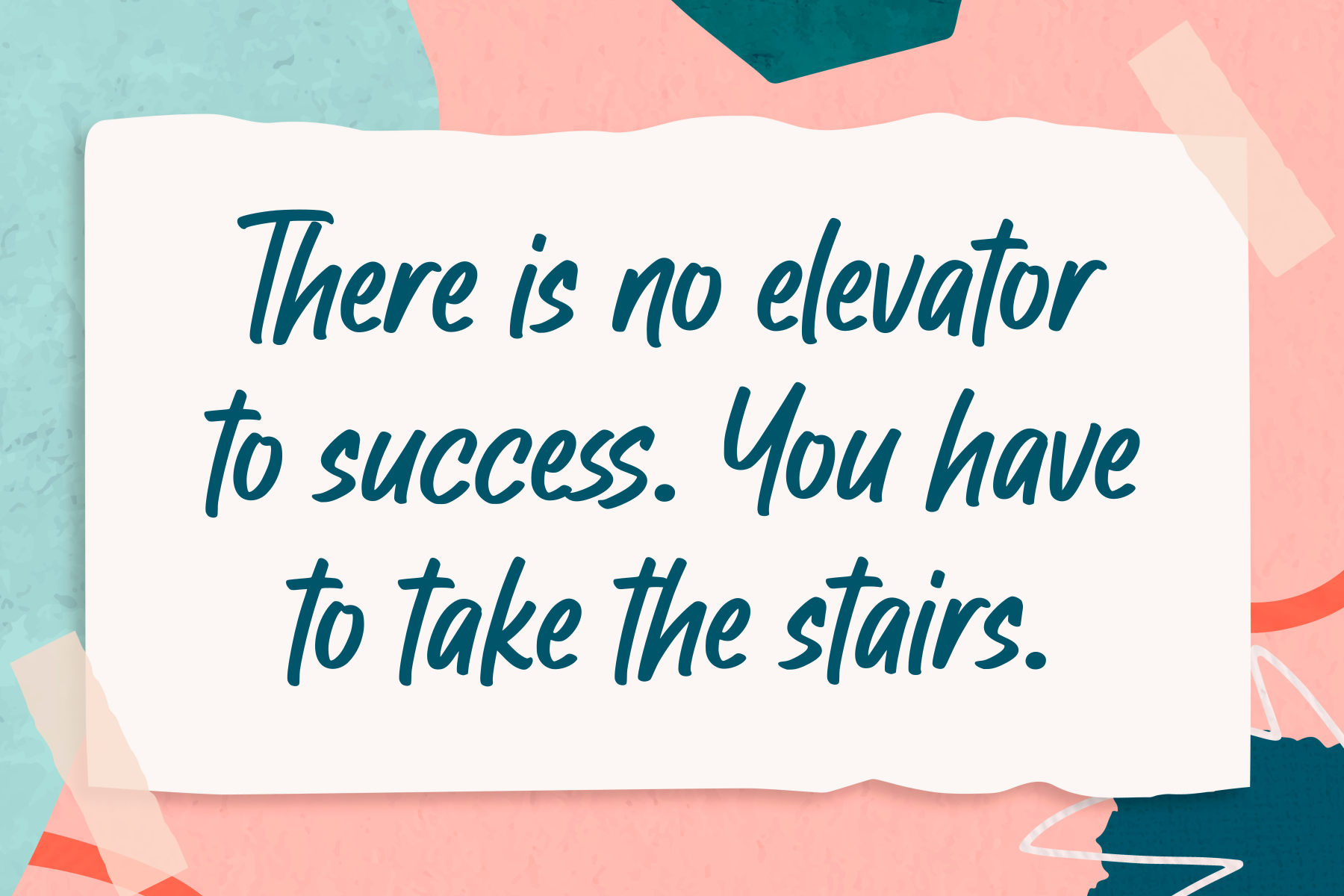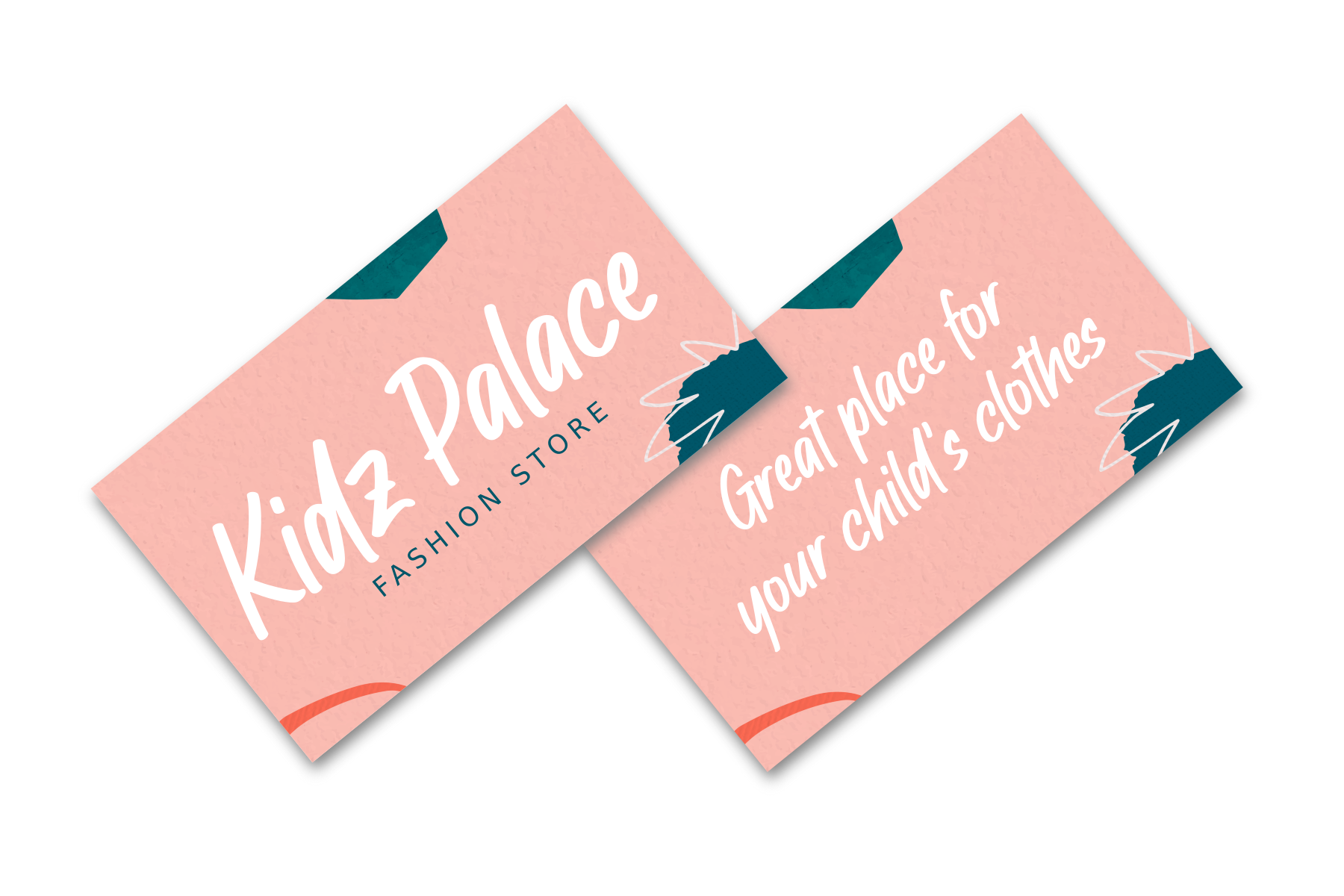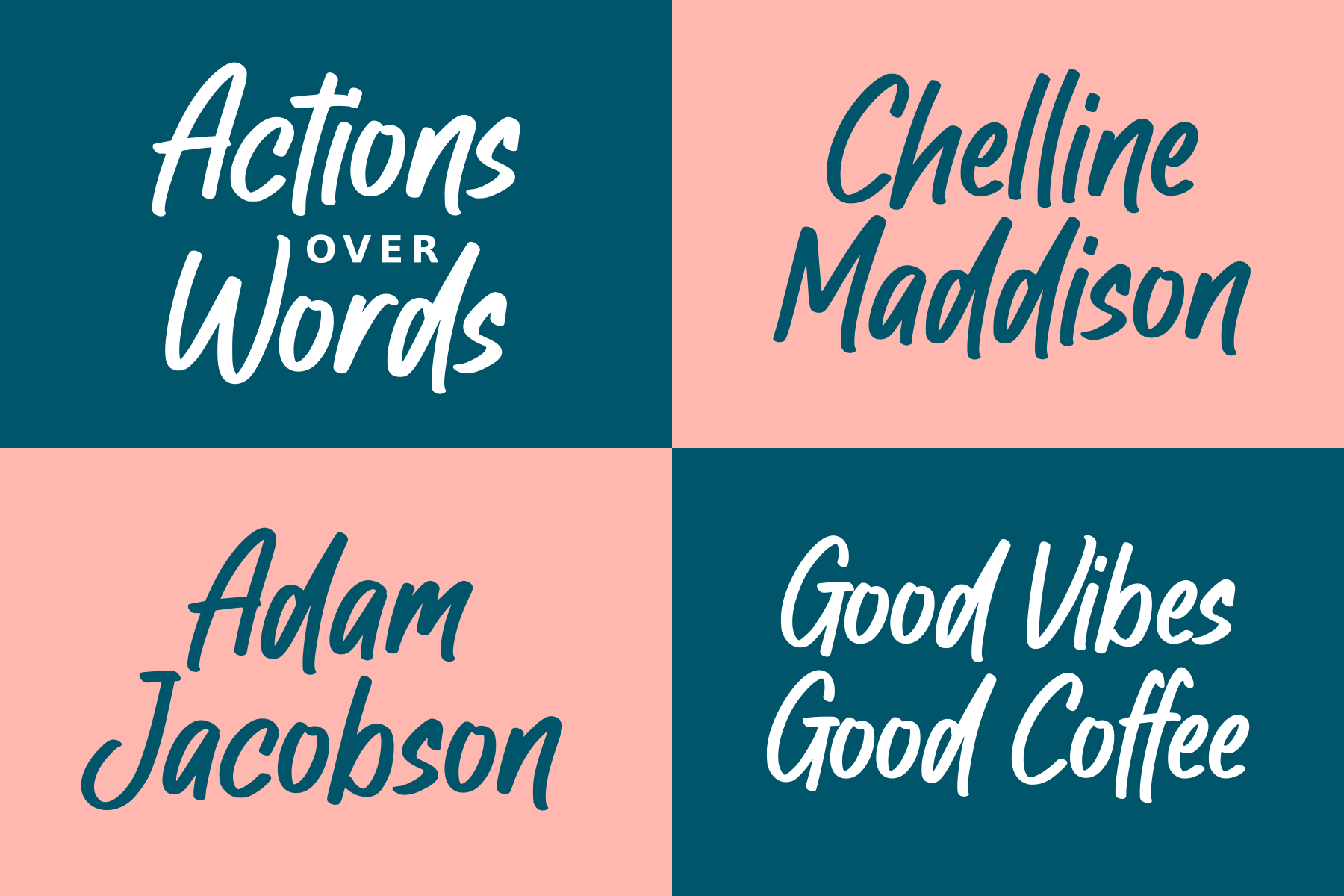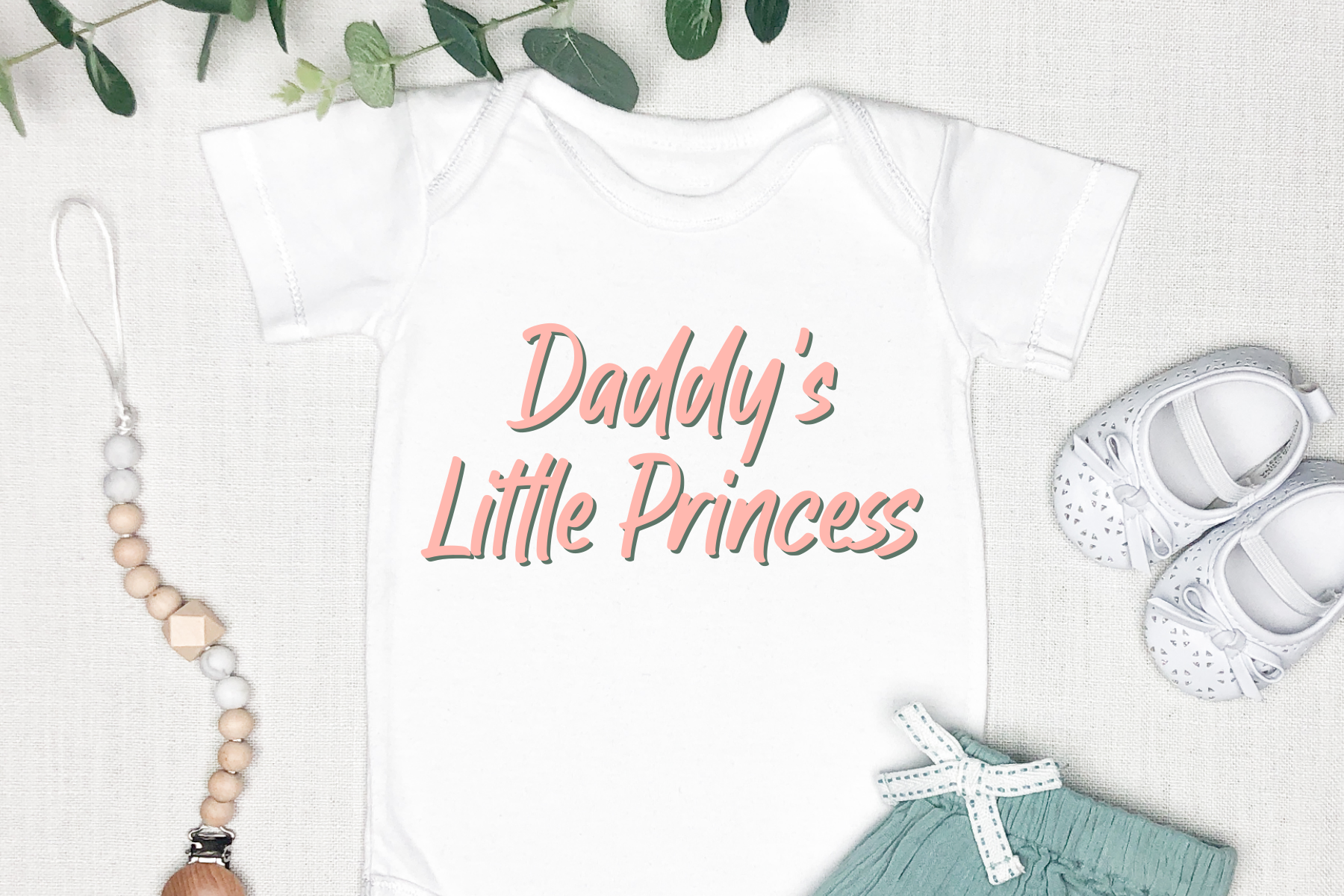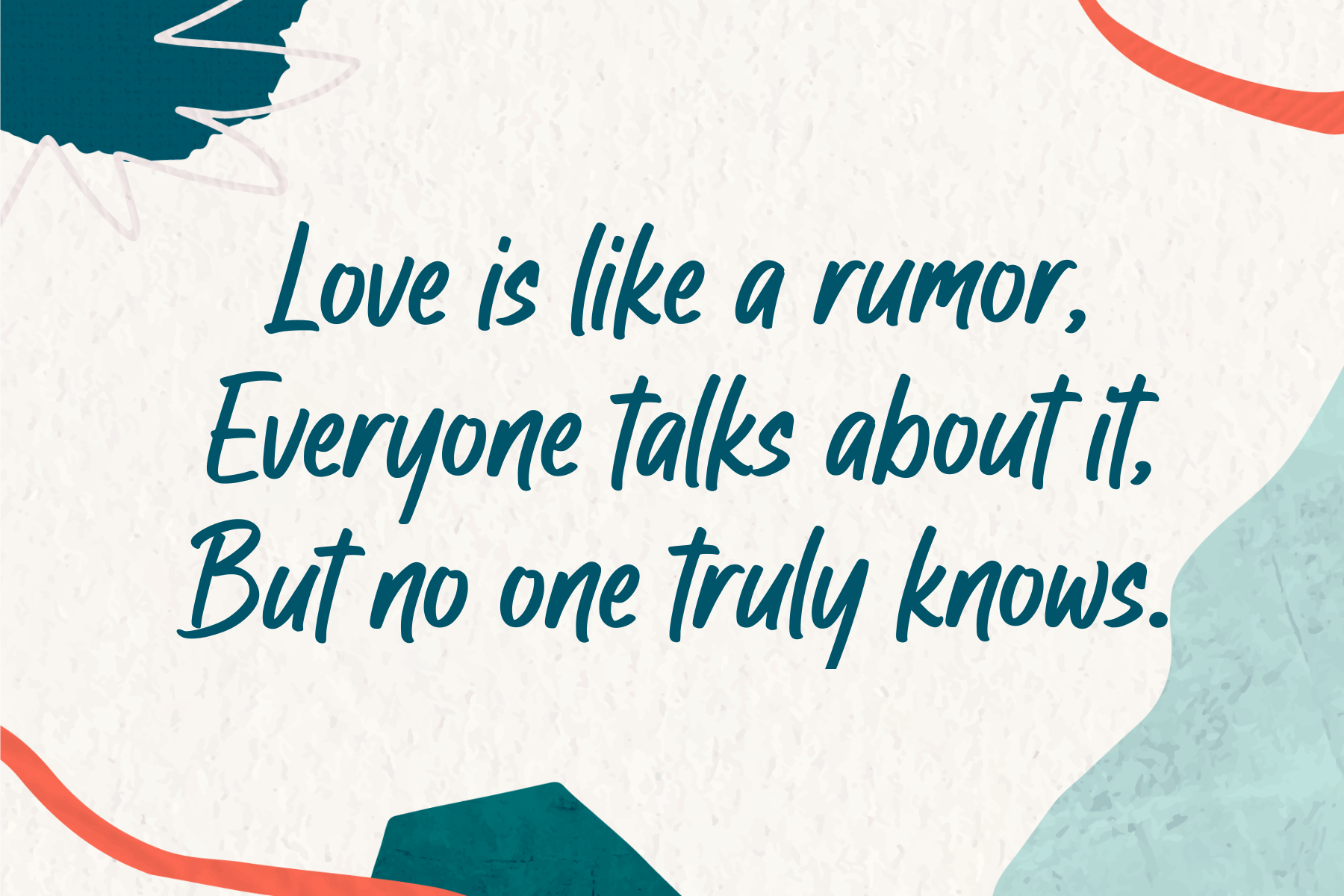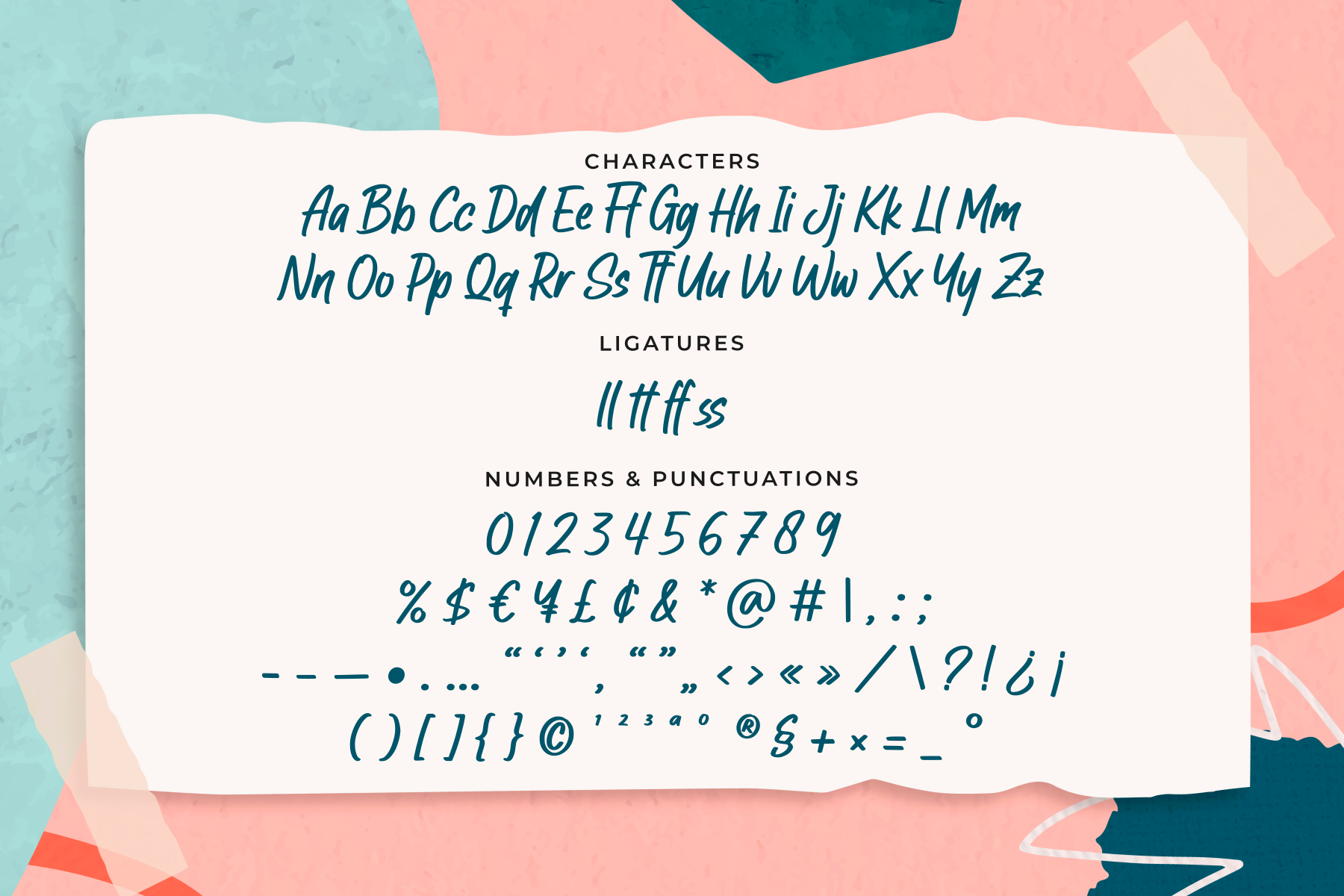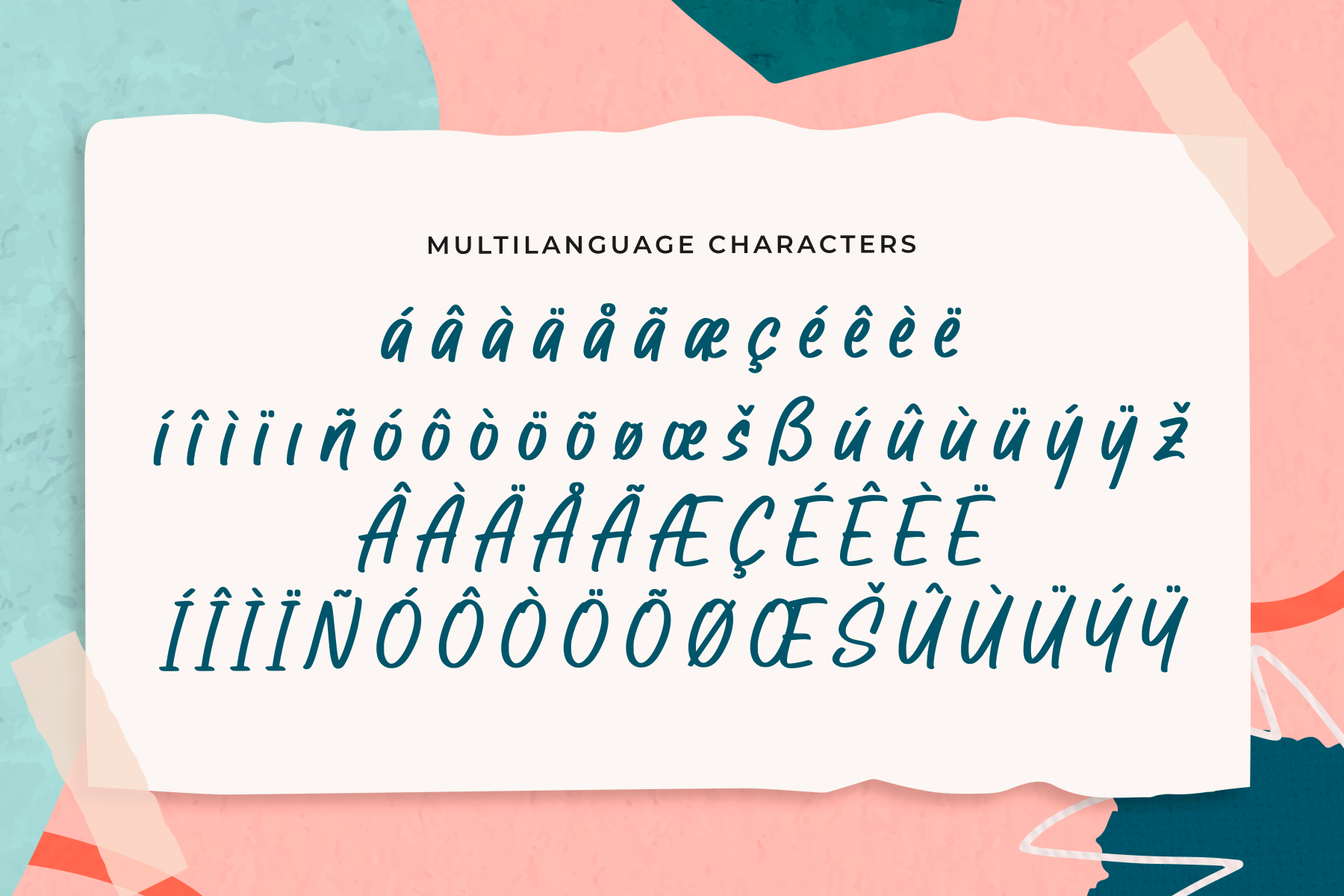
Bucknord - Marker Font
Bucknord is a cool and playful handmade marker font with a natural handwriting feel. It includes ligatures to make your text look more dynamic and authentic.
Bucknord is a cool and playful handmade marker font with a natural handwriting feel. It includes ligatures to make your text look more dynamic and authentic. It is perfect for logos, product packaging, invitations, branding, headlines, signage, labels, book covers, posters, quotes, and more.
Logos, product packaging, invitations, branding, headlines, signage, labels, book covers, posters, quotes,